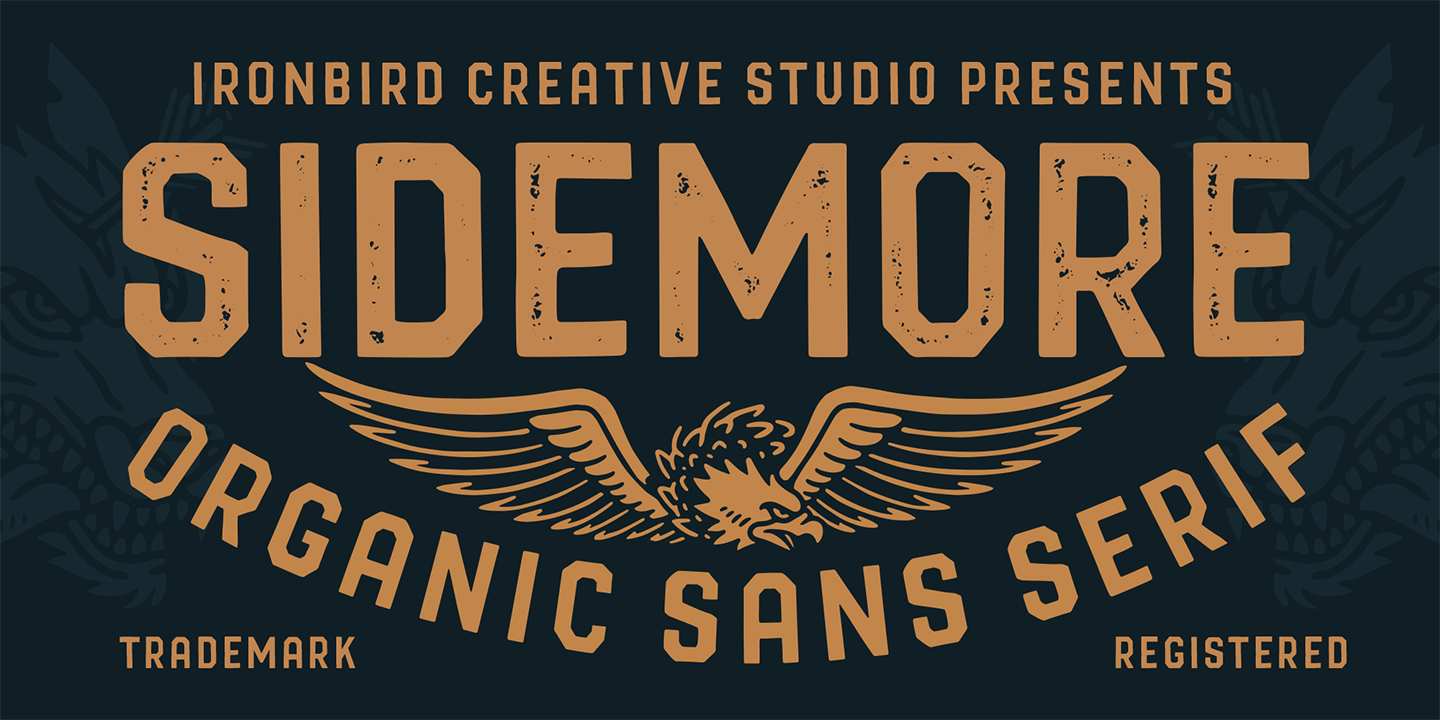
The Sidemore Font excels in various design applications including complementary brand systems, supportive marketing materials, secondary navigation design, sidebar typography layouts, supplementary publication elements, auxiliary corporate communications, additional signage projects, parallel campaign designs, companion product packaging, and cohesive design systems that demand harmonious integration and supportive sophistication.
What makes the Sidemore Font exciting is its exceptional ability to enhance and complement primary design elements through letterforms that provide perfect supporting typography without competing for attention. This typeface demonstrates remarkable versatility through carefully balanced characters that work seamlessly alongside other fonts while maintaining their own distinctive character and readability. The font's supportive personality makes it ideal for design systems requiring secondary typography that adds value and sophistication while allowing primary elements to shine through typography that literally provides "more on the side" to complete comprehensive design solutions.
The Sidemore Font family typically includes versatile weight variations designed for optimal pairing potential, featuring balanced proportions and extended character sets that enhance compatibility with diverse typographic systems. These family options often include condensed variants for efficient space usage, complementary symbols, and harmonious styling options that provide designers with comprehensive tools for creating cohesive multi-font systems that work together seamlessly while maintaining individual character distinction.
Design professionals and brand strategists consistently choose Sidemore Font Free Download for projects requiring typography that enhances overall design harmony while maintaining individual excellence. This typeface delivers exceptional performance in complex design systems, multi-level communications, and comprehensive branding where supporting typography must contribute meaningfully without overwhelming primary design elements. The font's complementary character makes it particularly effective for navigation systems and hierarchical information design. Download Sidemore Font Free Download today to access this versatile typeface that transforms design systems with its supportive sophistication and harmonious integration, creating compelling typographic experiences that demonstrate how excellent secondary typography can elevate entire design projects while maintaining perfect balance between supporting function and distinctive character.